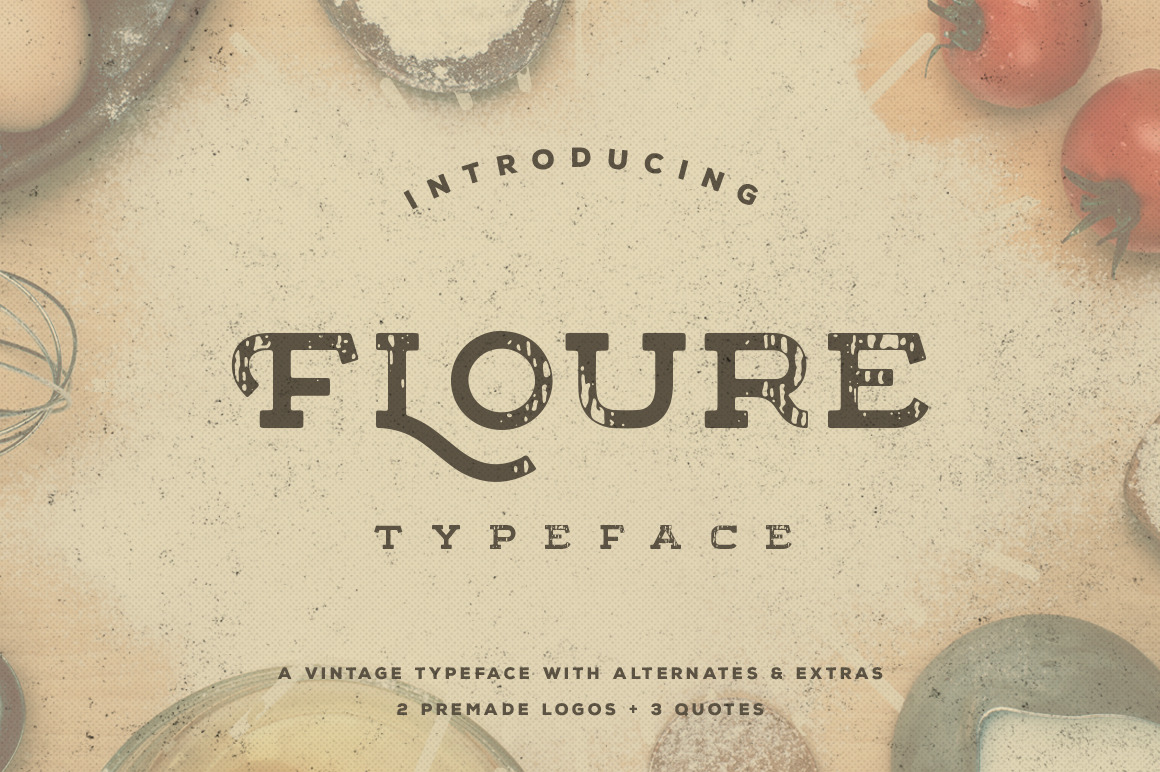
Floure Typeface + Extras
Introducing “Floure Typeface”
Floure is a new slab serif typeface with mid-19th century styles with strong, unique and vintage rough shapes, that can handle a lot of design projects.
Together or apart, the slab fonts are perfect for an authentic retro feel on your branding, advertising, poster design, book covers, headlines, prints, merchandise, websites,magazine, album covers, quote designs and more.
EXTRA SET OF ALTERNATE LETTERS : To create a beautiful combination, floure typeface comes with some alternate lowercase characters available as a separate handy font.
OPENTYPE FEATURES : Floure Typeface has also been coded to include some of double letter ligatures and of course the stylistic set of lowercase alternate characters.
Floure Typeface includes Multilingual Support.